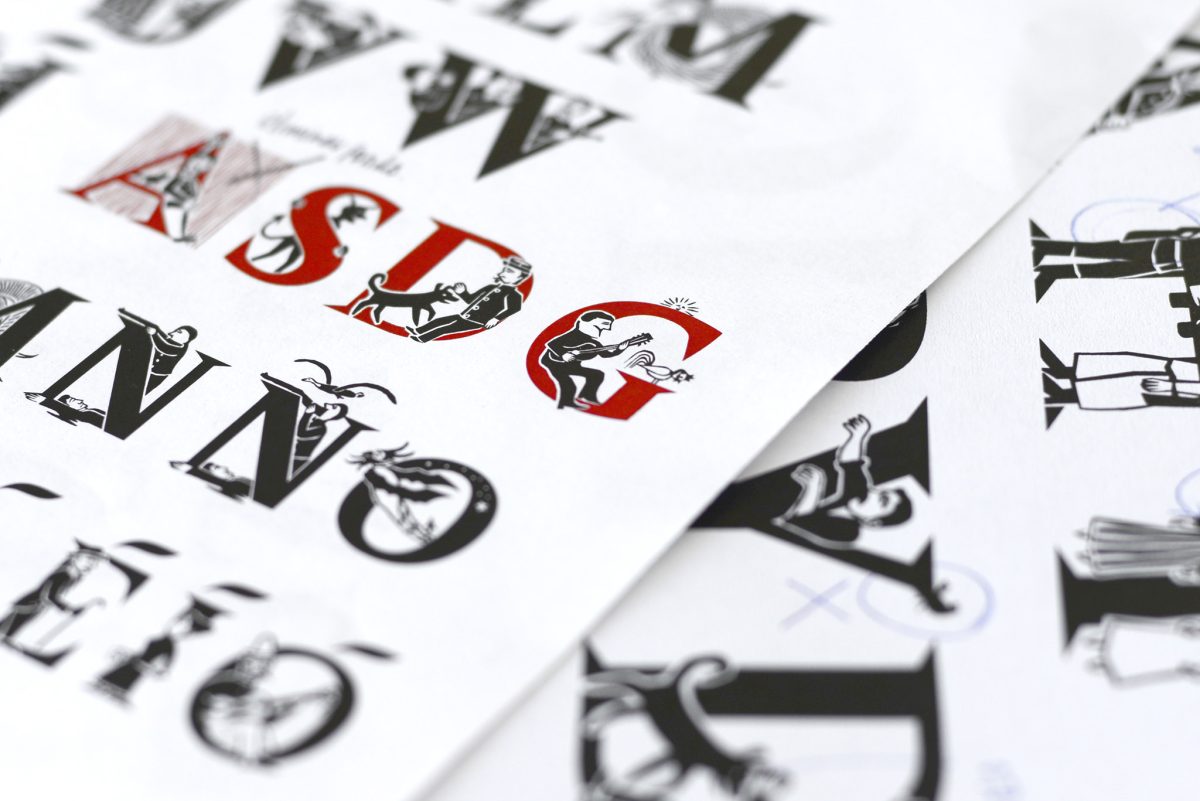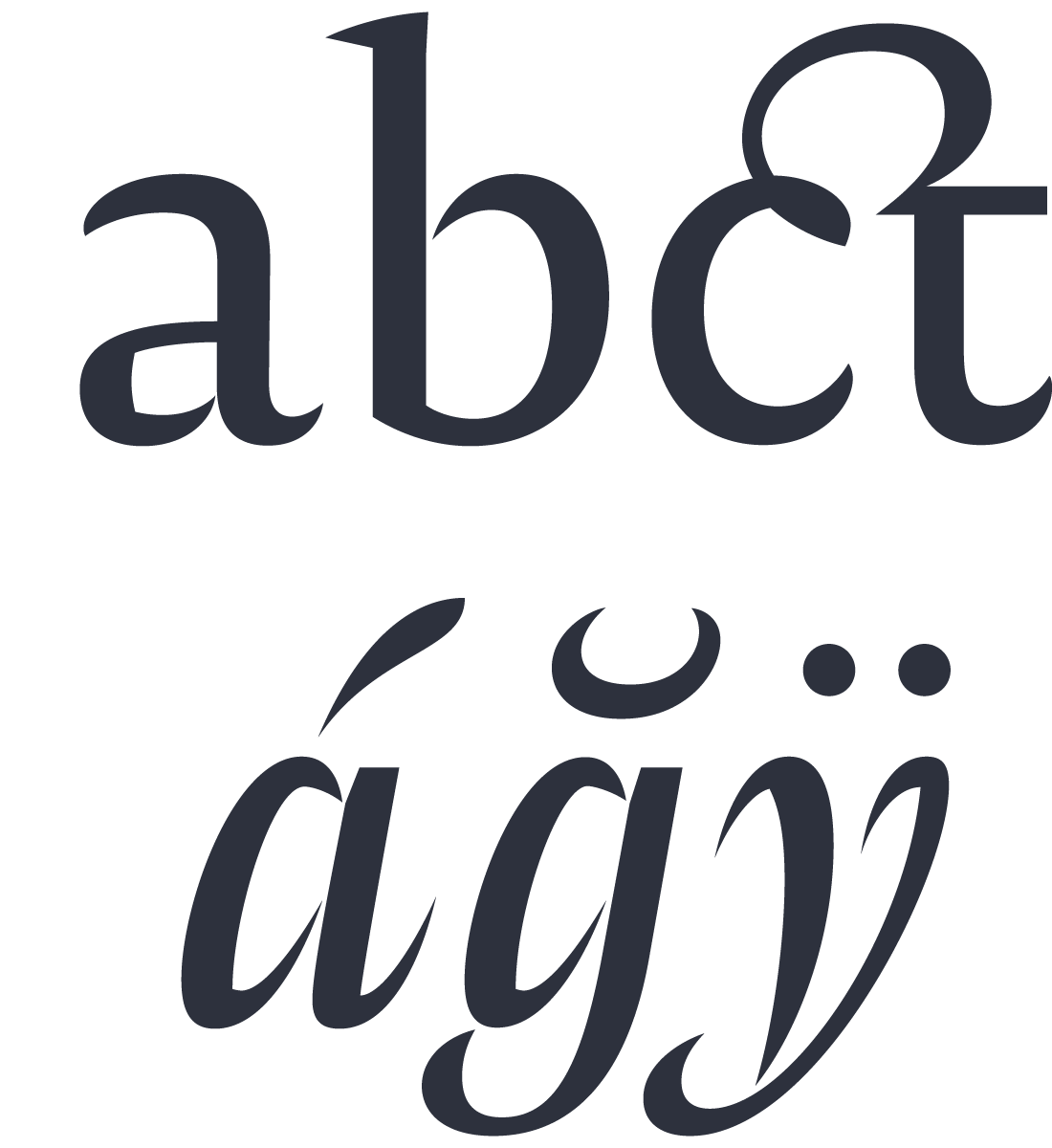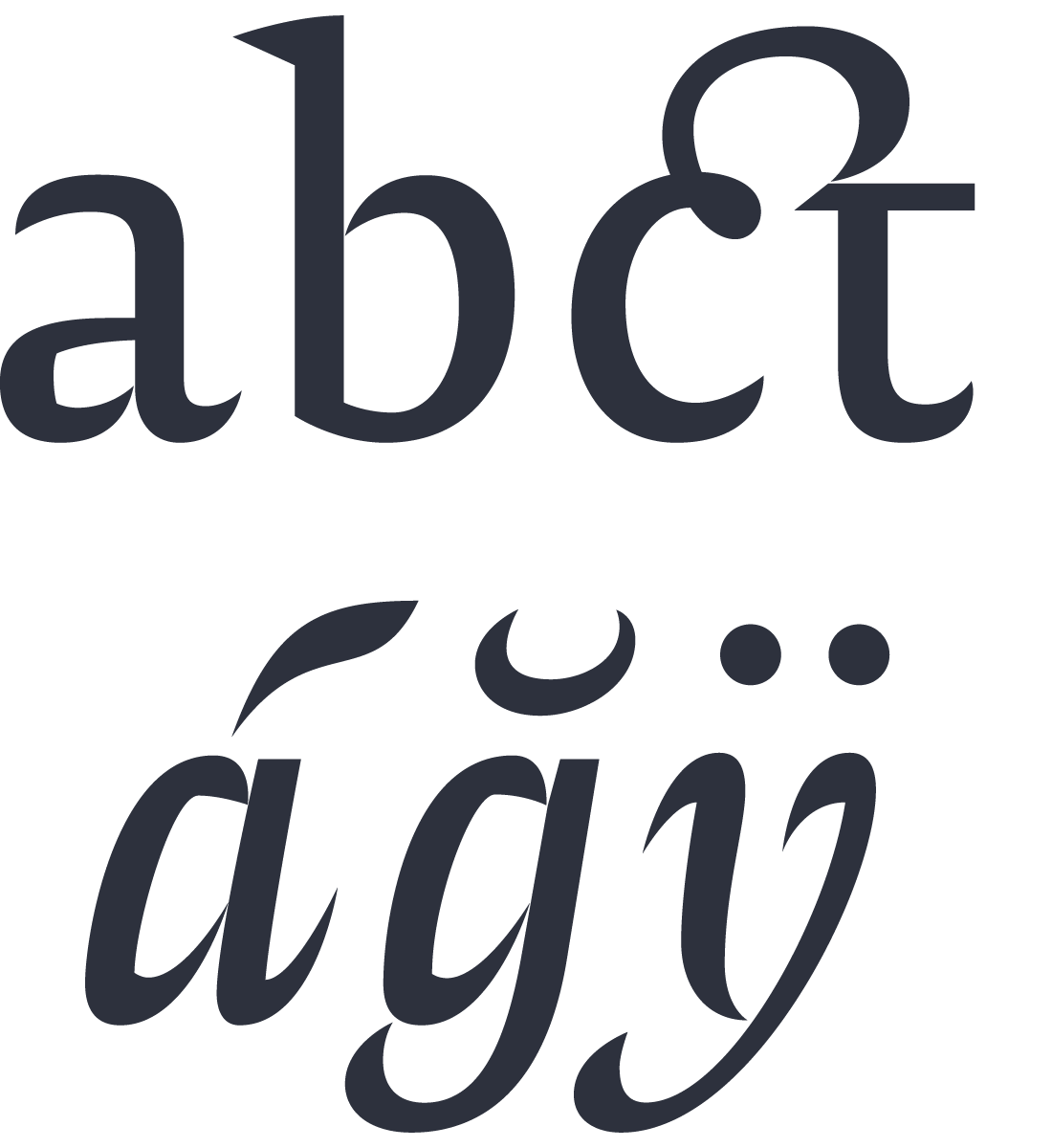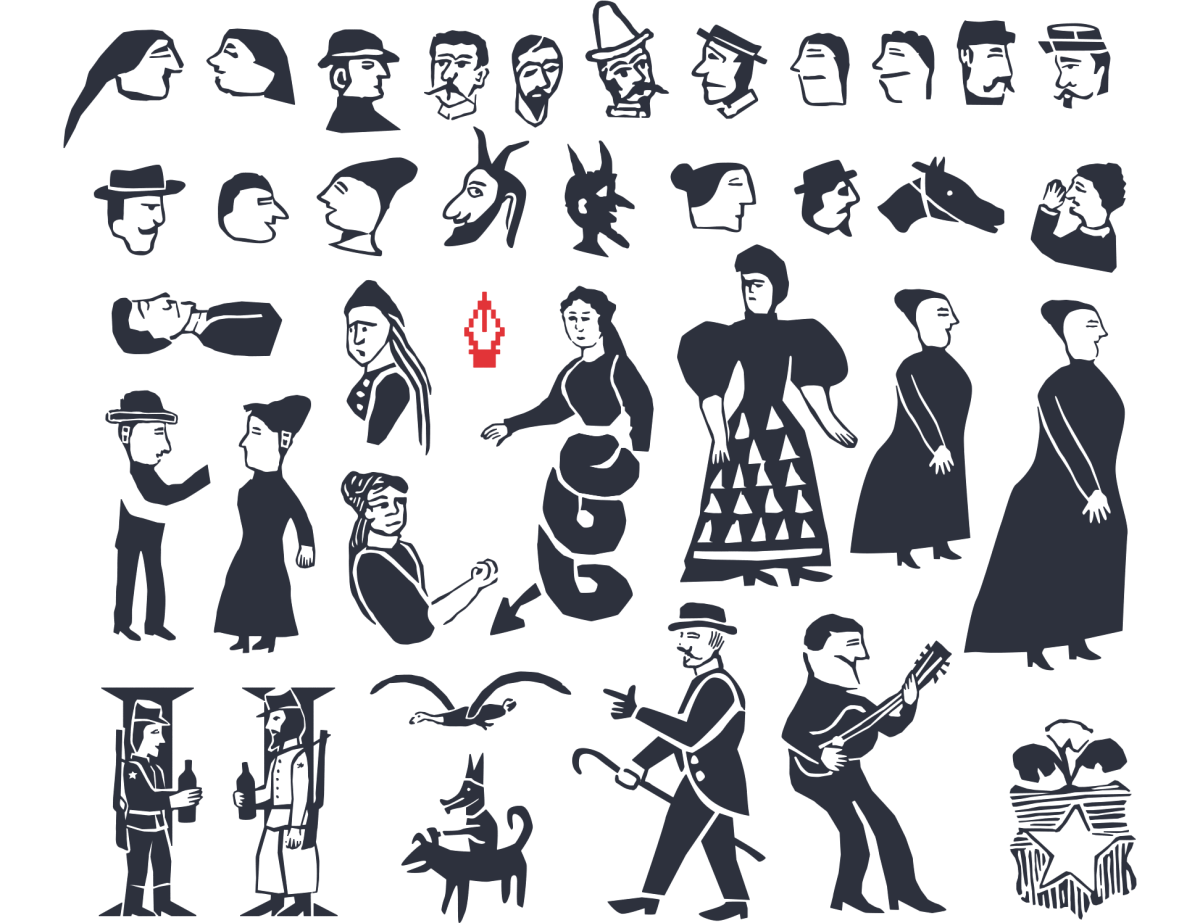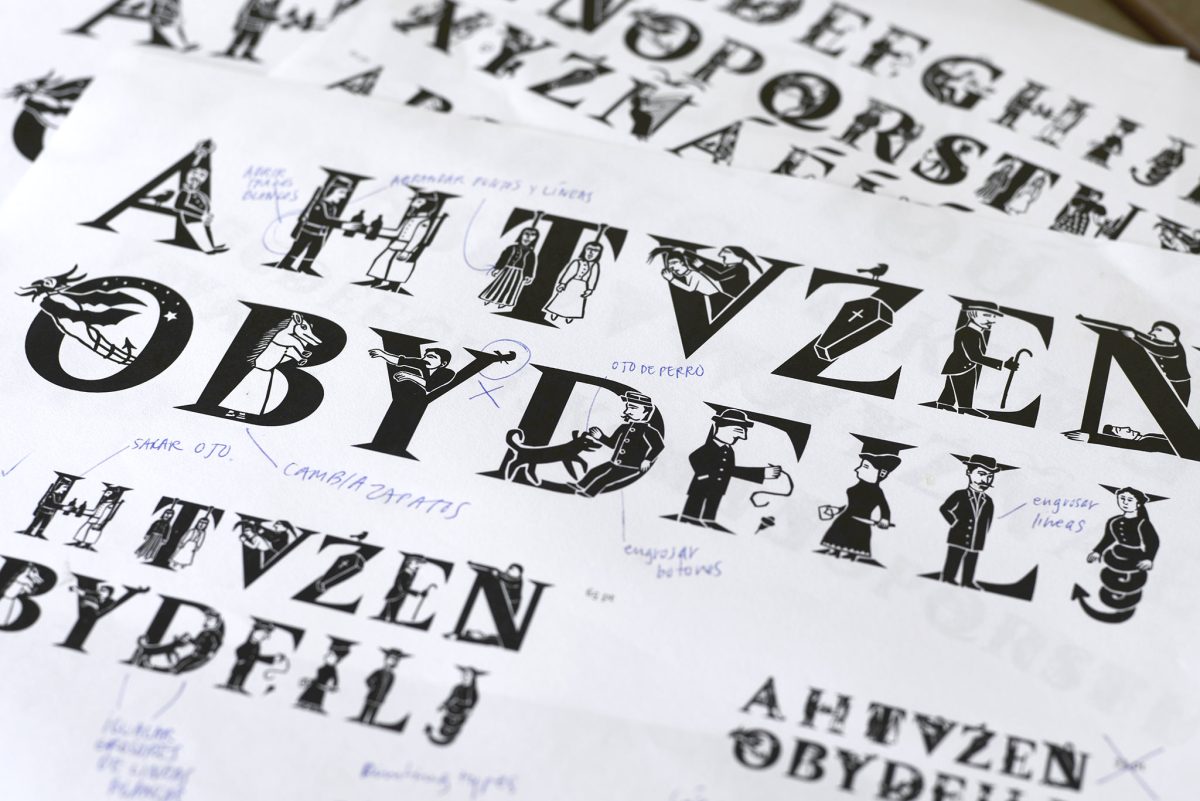
Between woodcut miniatures and typefaces for books? The Amster type
The design of the Amster type family implied a process of creation and maturing of seven years. In this article Francisco Gálvez, its designer, gives us some of his various insights around that process, its referents and inspirations.
Inspiration: Mauricio Amster (1907-1980)
Often foreigners leave an indeleble trace in cultures which are not proper to them. This has been the case of the Polish-Spanish typographer Mauricio Amster in Chile.
Every self-motivated typeface that I design implies a journey in which I ask myself many questions in regards of the possibilities and subtleties of the typographic dimension of writing. Facing this project in particular, that self-questioning started as a reaction to a Mauricio Amster’s book Técnica Gráfica (1957), aimed at journalism students. Together with Ernesto Montenegro, Amster founded the School of Journalism, Sciences and Techniques of Communication, in the University of Chile in the fifties. He wondered about typography in Chile, a precarious culture by the time.
Two different editions of Amster’s book “Técnica Gráfica”.
The honored person behind the type
Dedicating this project to Mauricio Amster was an inevitable thing, and following a suggestion of my friend Eduardo Castillo, I baptised the typeface with the surname of this illustrious person, even though I never met him, I was a kid when he died in 1980.
Out of all the different works he made one in particular impressed me a lot. It is a detailed capital letter he designed for an introductory text about a selection of Chilean engravings known as Lira Popular.
That work opened my eyes to a literary tradition in Chile which I had ignored, the popular poetry of the Lira usually accompanied with anonymous engravings which related strange and violent stories. The initial letter designed by Mauricio Amster motivated me to create a complete alphabet of initials. Even though probably nobody would actually need such thing, I didn’t think of it as a reason for not doing so.
Sequence of details in engravings of the Lira and four initials interpretations.
Versales Iluminadas
In the drawing of vectors, to adapt the shapes and proportions of the personages in the engraved scenes of the Lira into the majuscule letters was a whole challenge by itself, a fun and stimulating task. Imagination flies and time is the only enemy to accomplish what ones is looking for.
Prints of vector drawings of a few personages.
Amster is an experiment between amateur xylographic printing and the tradition of the book typography. Amateur is a beautiful definition in the sense that one loves the profession without necessarily being professional. Fortunately digital technology now allows for all the possible details that could not be done in the past, almost like a manuscript codex.
The impulse of illuminating the capital letters originated on that idea used in the codex. However illuminations have long lost its power and it’s usually seen as something old or retrograde. Nevertheless this was a motivation to prove otherwise with the illuminated capitals of Amster: that it is possible to tell good stories, to enrich the meaning of texts, and to take advantage of the infinite possibilities that programming offers us. Much remains to be done of course.
Annotated prints for the Versales Iluminadas.
Illuminated capitals, color proofs and accents
Stencil letters for text?
In the text fonts of Amster I also experimented with form. Designing letters not far from the idea of stencil was a consequence of avoiding ink traps, which was longly checked through laser prints. The idea that paper plays a role in the form of letters has always aroused interest. Even today regarding screens something similar happens also with hinting.
Amster on coated paper
Amster on uncoated paper
The typeface embolds several design details. To mention a few: there is the caron accent. In a visit to Santiago de Chile, Peter Bil'ak explained to me why the design of this diacritical mark should be different if it’s in a minuscule d or in a t. That explanation made me think of a caron as the right half portion of a complete caron. Even though it resembles the acute accent, its besides d, l, and t makes it clear that it's a different accent.
Left: sketch made by Peter Biľak.
Right: [up] the caron designs in Amster and [down] in Lava by Biľak.
Another detail: Due to a comment by Alejandro Lo Celso, I changed letter Y in the Versales Iluminadas, as the idea was to represent a drunkman and in the initial version the personaje gives the impression of being spying rather than being drunk.
Left first drawing, right second drawing
Ornaments of Arabic inspiration
In addition to this, and due to my interest in repetition patterns, I also drew two icons based on the Copihue, the national flower in Chile. They were included in different positions in the character sets of Amster. Many designers know the typefaces made by Bram de Does, but for me it was a discovery to know he had done a powerful work with repetition patterns. I drew inspiration from his two books Kaba Ornaments which are crazy! One is completely drawn by hand, the other made using metal types.
The long time involved in designing this family implied refining every detail, not only the strokes assemblies but also the proportions, the falling of curves, the widths and the structure. Redrawing completely the initials was a wonderful exercise in comparing and choosing the best options. The first drawings were too coarse, following the idea of xylographic imprint, however type design always seeks for an overall texture agreeable to the eye, and also to show the subtleties when it is used in big bodies. All these details that also involve elements of the Chilean identity find reason in my gratitude for the anonymous work of Mauricio Amster. Here is the result.
2007
2014